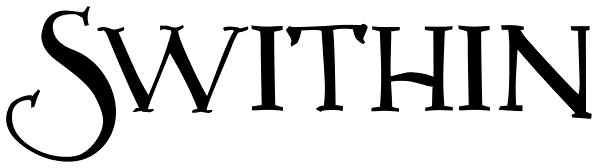
Swithin
Swithin is based on hand lettering from the titles in a Victorian fairy tale collection. It has a playful look which seems just right for the holiday season, with some rough, hand-drawn variations which make make it feel more unique. It's...